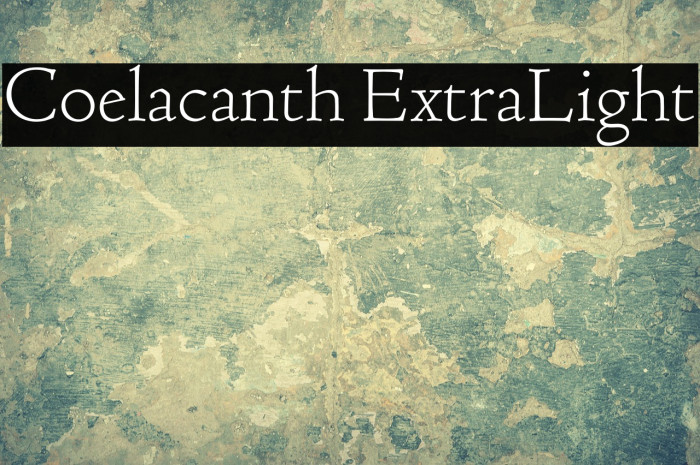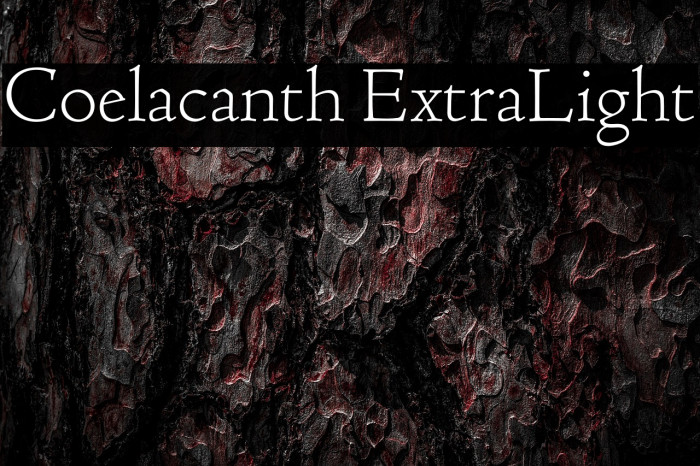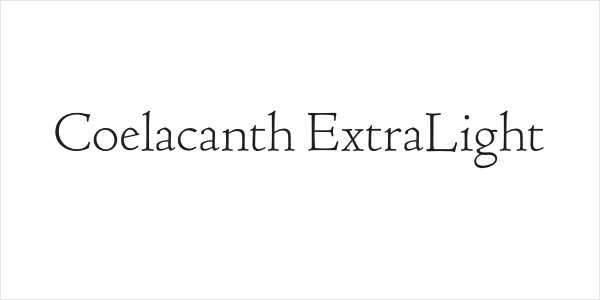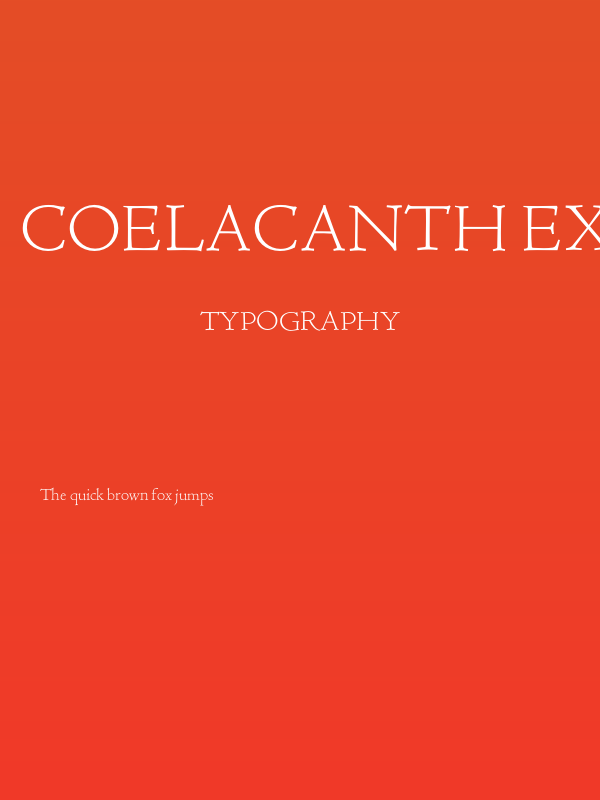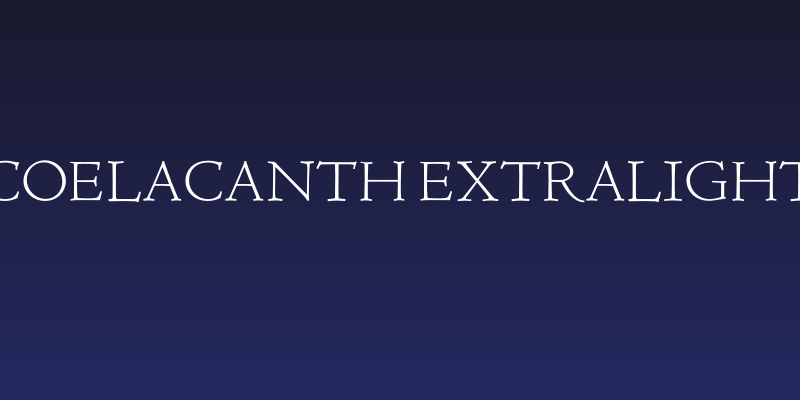
Coelacanth ExtraLight Font
Coelacanth ExtraLight Description
This font features a classic serif style with elegant, elongated strokes and a refined appearance. The characters are well-defined with a slight contrast in stroke thickness, giving it a sophisticated and timeless feel. The uppercase letters are tall and stately, while the lowercase letters maintain a harmonious balance with a slightly more playful curvature. The numerals are clear and distinct, complementing the overall aesthetic. Special characters are designed with the same attention to detail, ensuring consistency across all glyphs.
| Proposed Projects | Ideal for use in editorial design, book covers, formal invitations, and branding projects that require a touch of elegance and tradition. |